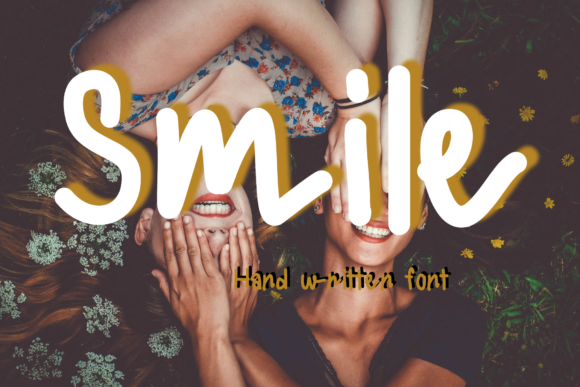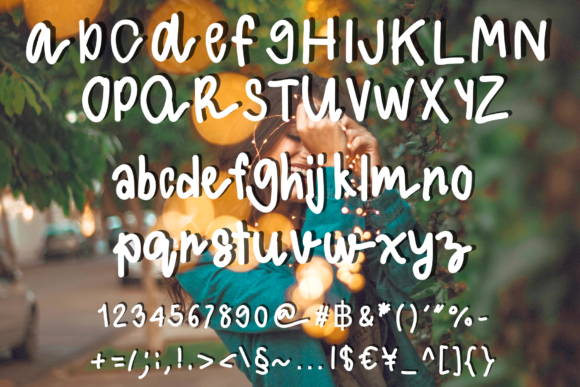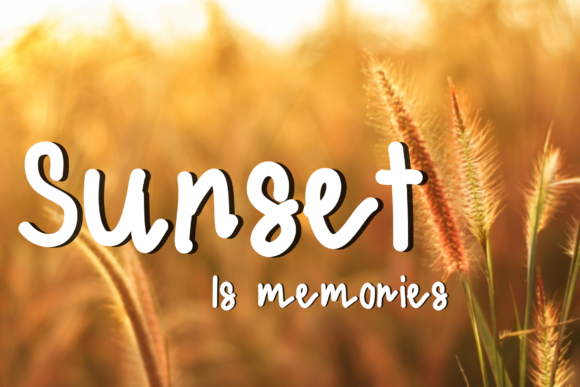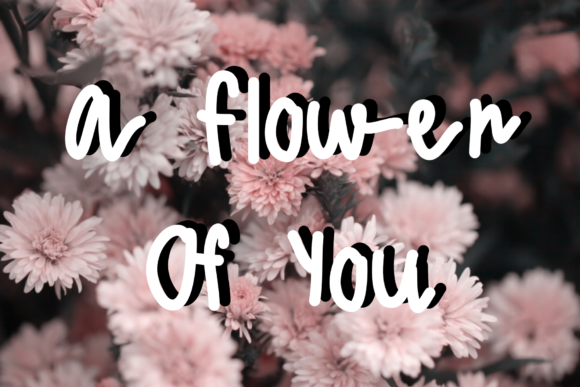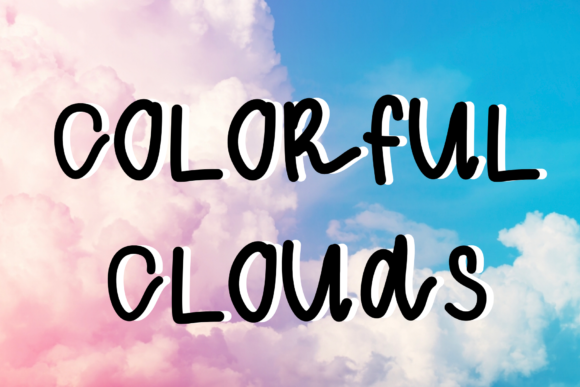
Smile Font
About Smile Font
Smile is a cute and friendly handwritten font. Its casual charm makes it appear wonderfully down-to-earth, readable and, ultimately, incredibly versatile. Smile will look outstanding in any context, whether it’s being used on busy backgrounds or as a standalone headline!